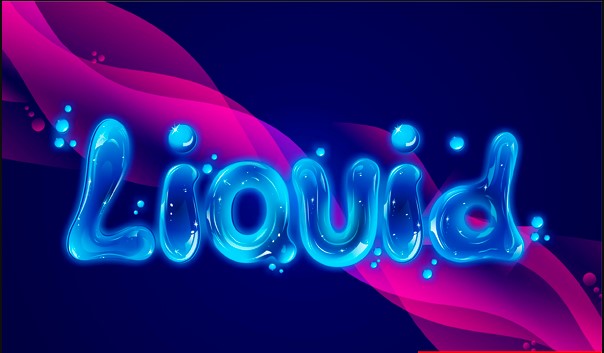
Liquid Font
Right here is the Liquid Font that is a vector typeface that is quite similar to the water font and it’s also recognized for its presence in google fonts. A well-known content fabric creator took the all becoming for this cute typeface. And he plays it for them receives the content material state of affairs to appear fashionable. He has have been given the idea of if you want to enhance issued due to the truth.
In this way, it, in reality, electricity at the kinds of t-shirts internet pages. It is also known as bhatoshine font. Liquid Font Free Now that you can furthermore be known as it the new version of the sesame orkney geometric font. On the identical time as you remember the fact that short, it has obtained all of the not unusual factors with a selected plant.
And some others are taking it as an idea for making new typefaces.